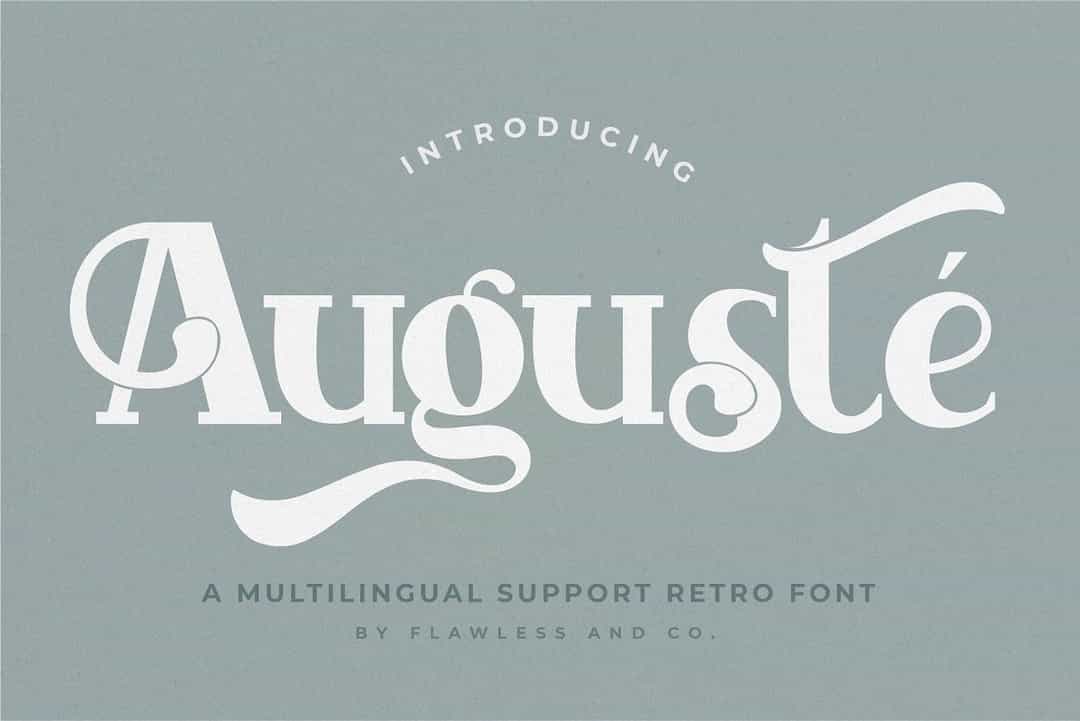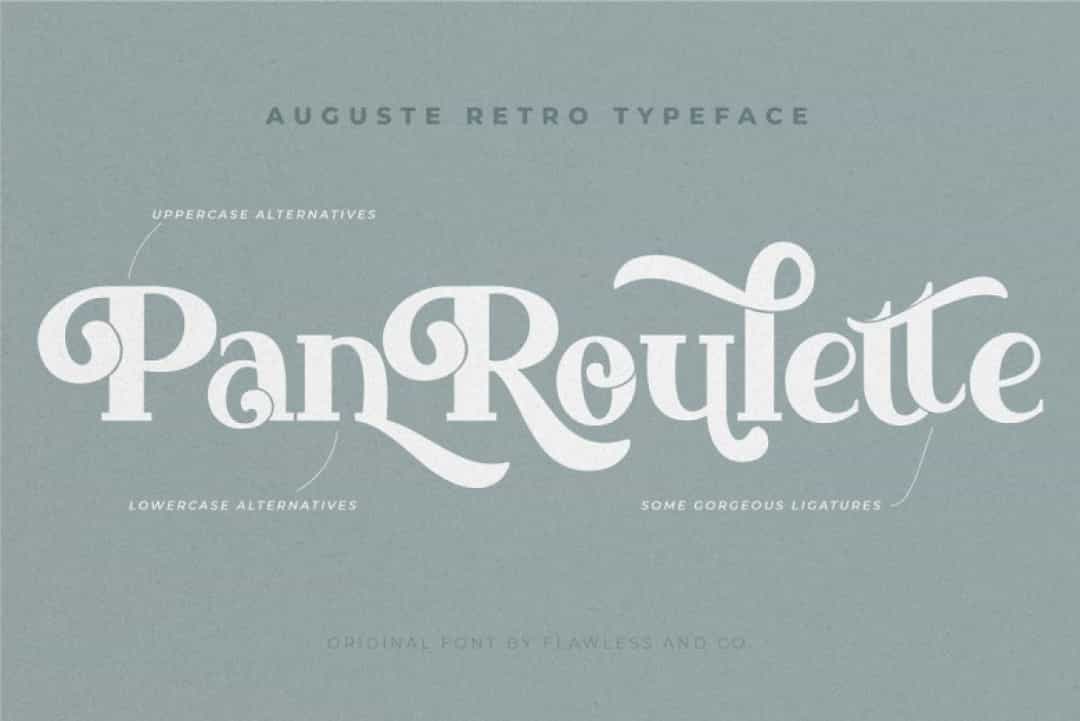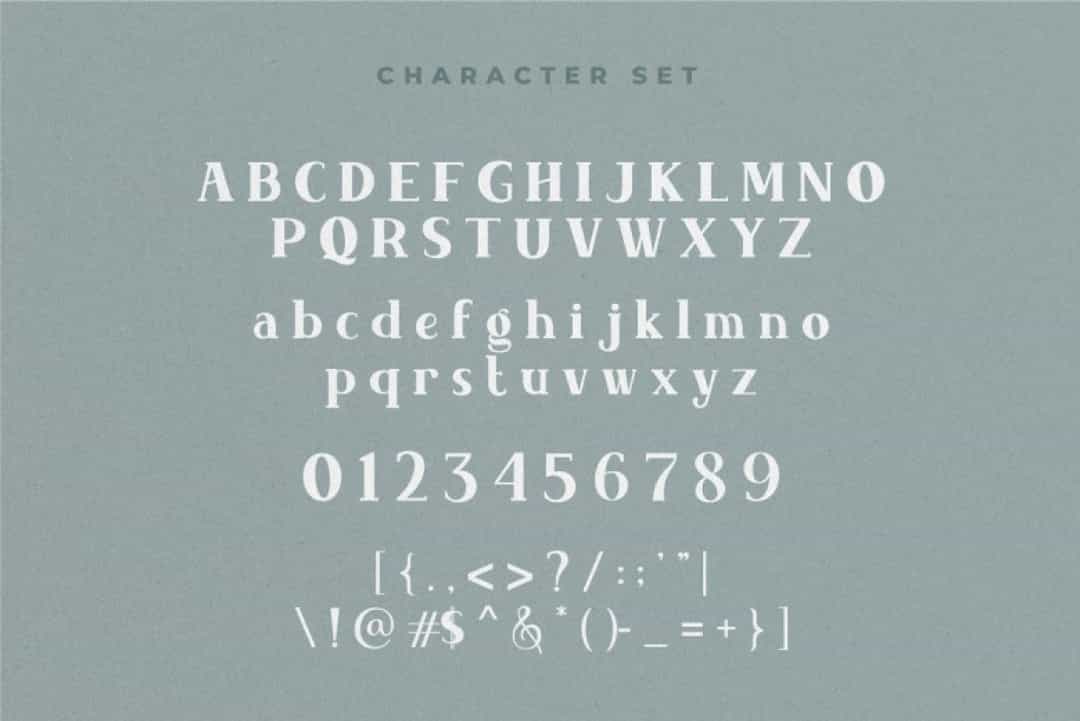
Discover Auguste Font, part of the Serif Retro collection—a versatile and unique font perfect for adding a personal touch to your projects. Download it for free and enjoy crafting designs with style, from invitations to social media posts. This font is available exclusively for personal use, giving you the freedom to create without limits. Unlock your creativity with Auguste Font today!
Auguste Contemporary Retro Serif Font is our latest design; an updated take on bohemian design featuring different ligatures and alternative fonts with multilingual support – perfect for branding font use in businesses magazines logos etc.